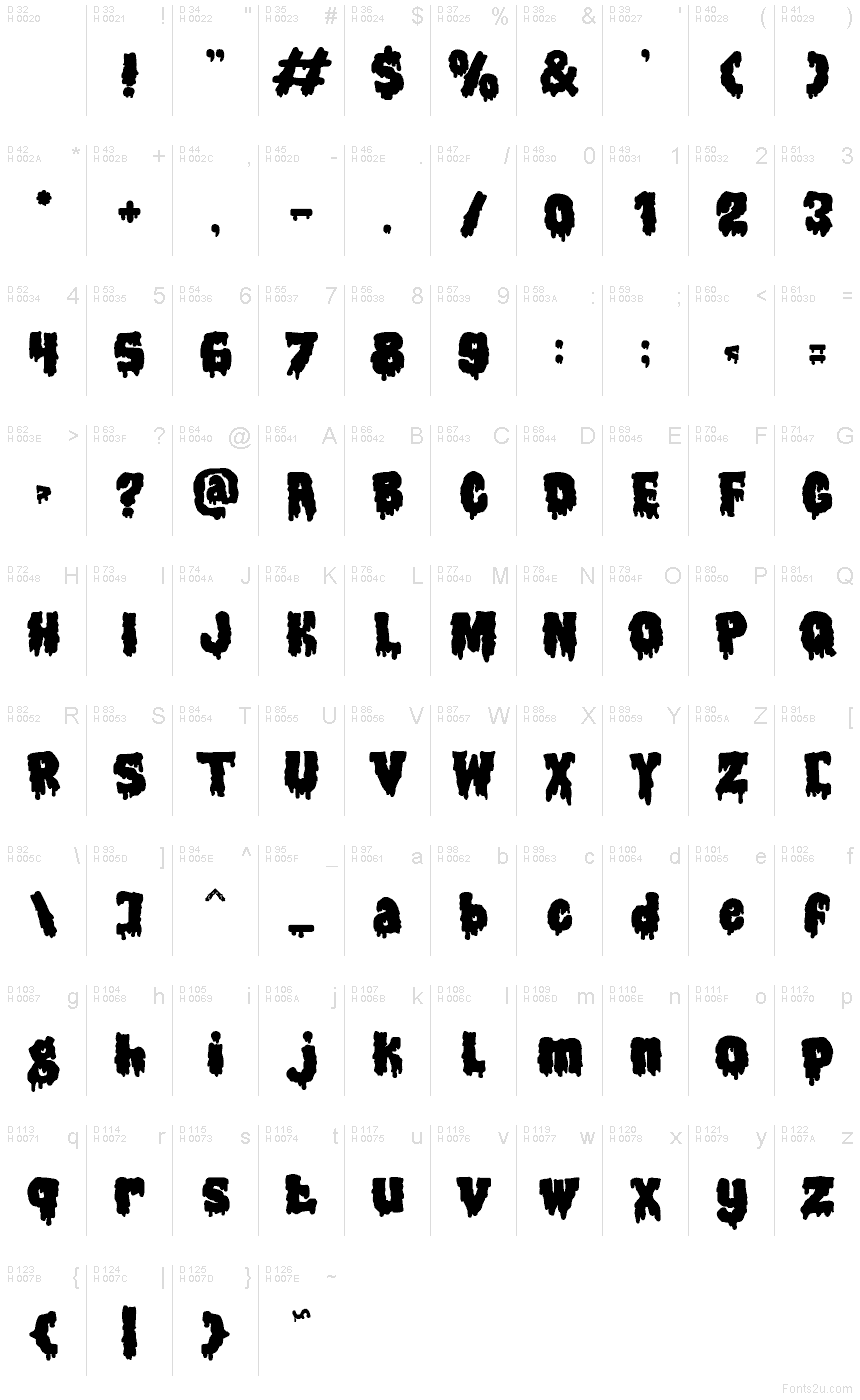
Gothic Haunt Blood
Gothic Haunt Blood font by PutraCetol Studio is a free Halloween display font. Part of the Gothic Haunt family, it leans into thick, inky silhouettes where letters look freshly splashed and slowly dripping. The blobs and sagging edges create a juicy horror texture, yet the overall rhythm stays readable, so headlines hit hard without turning to mush.
Using Gothic Haunt Blood, you’ll get instant mood for haunted house posters, trick-or-treat flyers, horror podcast covers, indie game splash screens, candy or snack packaging, seasonal banners, and YouTube thumbnails. This free font loves big sizes and tight tracking for maximum ooze. Pair it with a plain geometric sans for body copy so the drippy title can do the screaming.